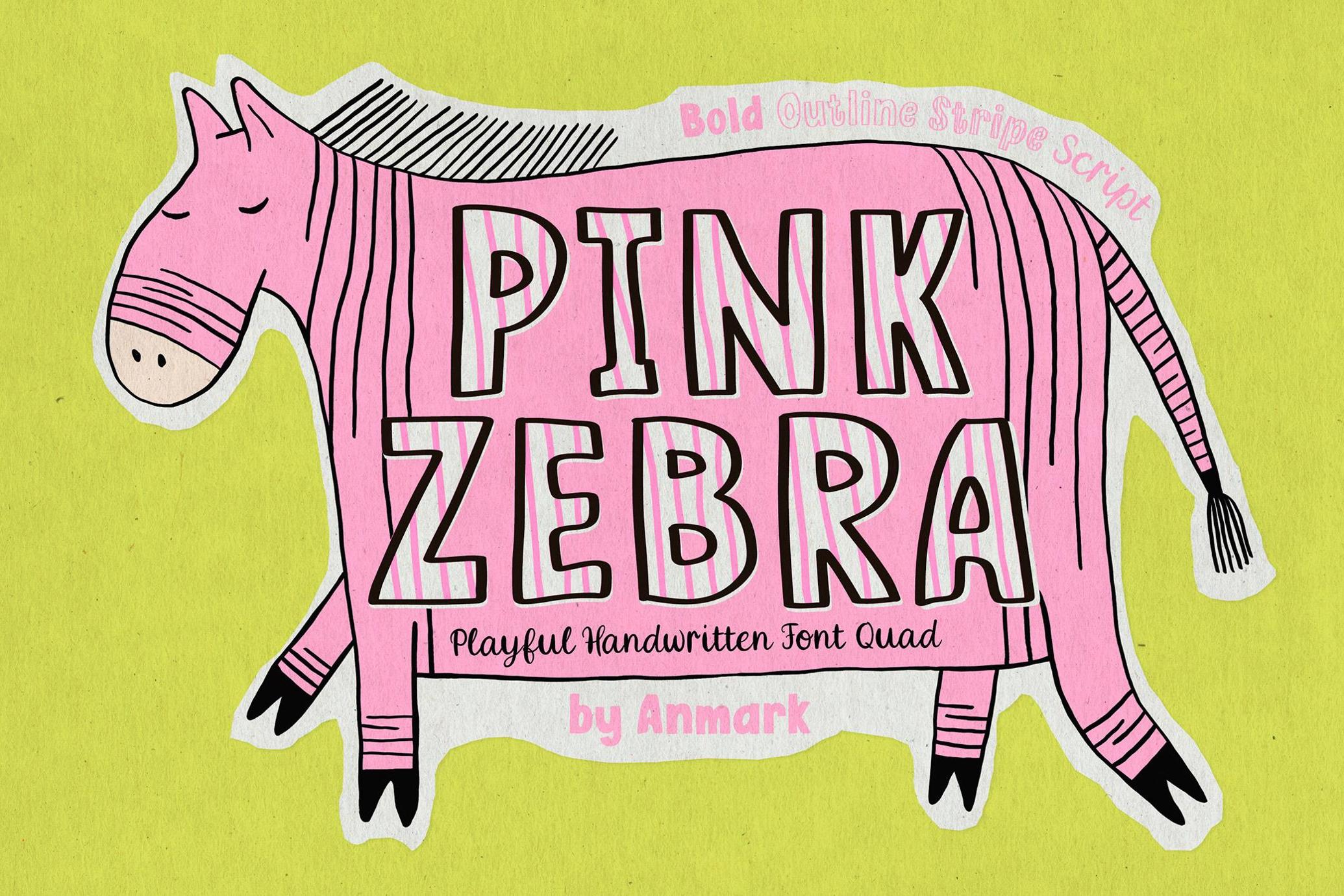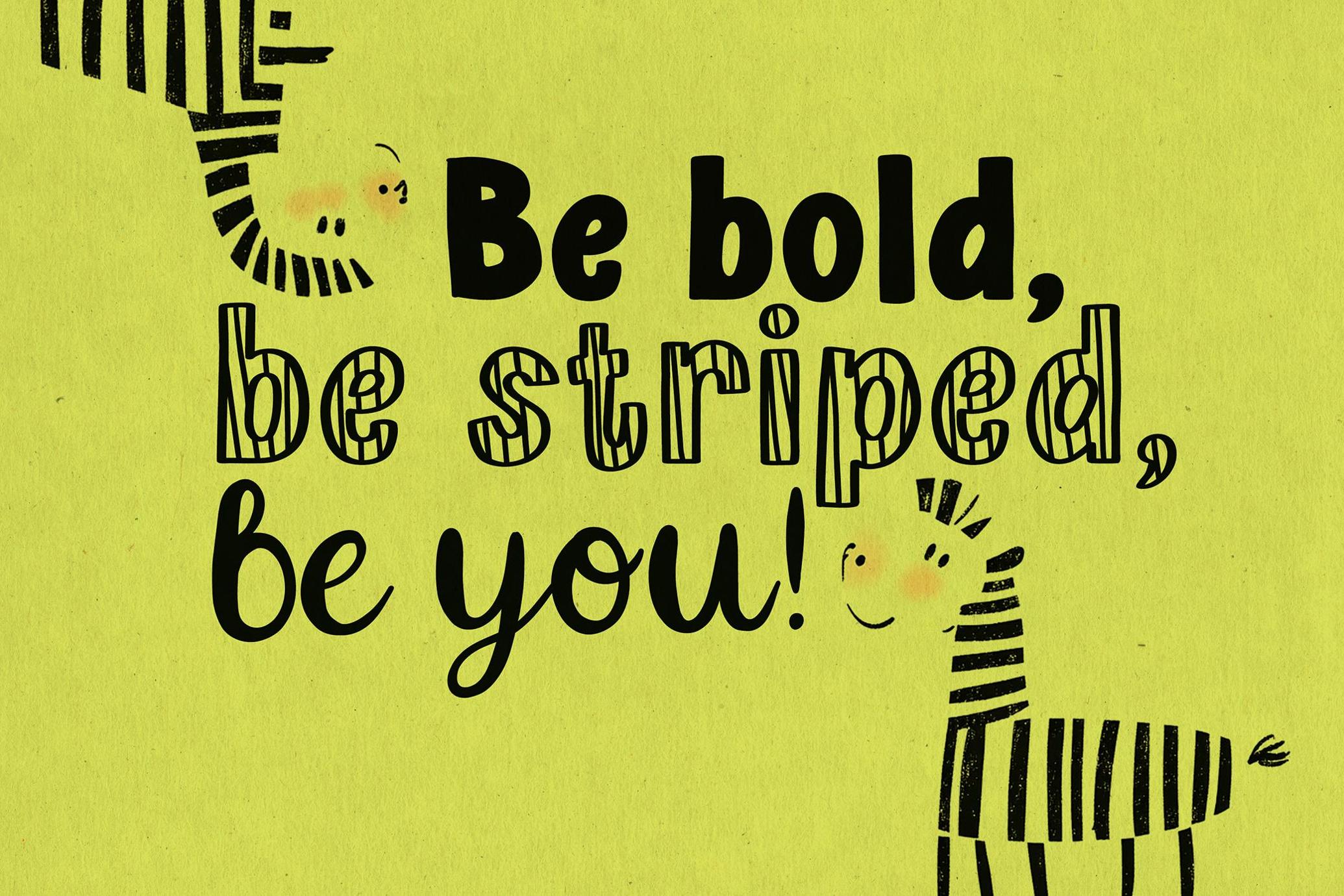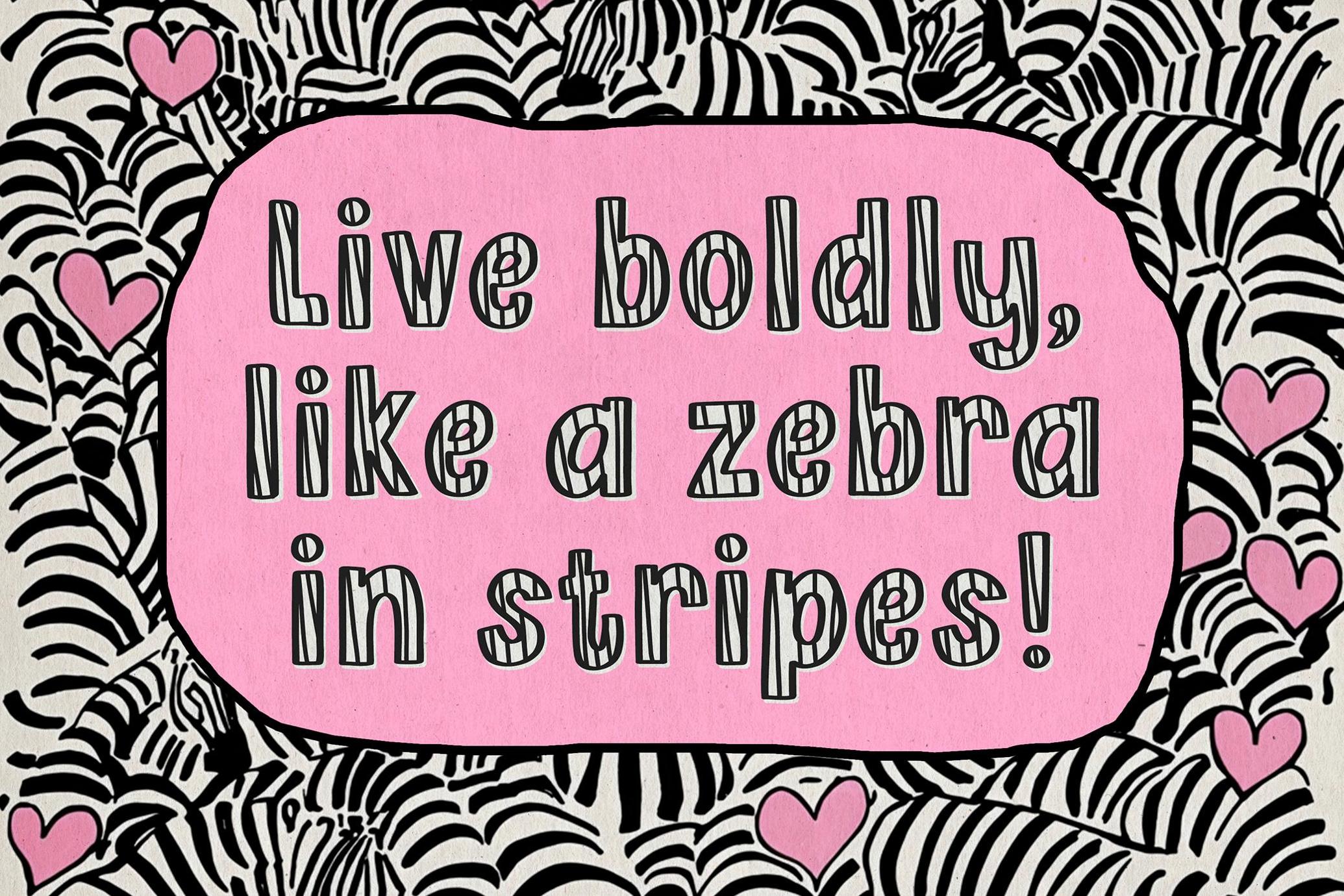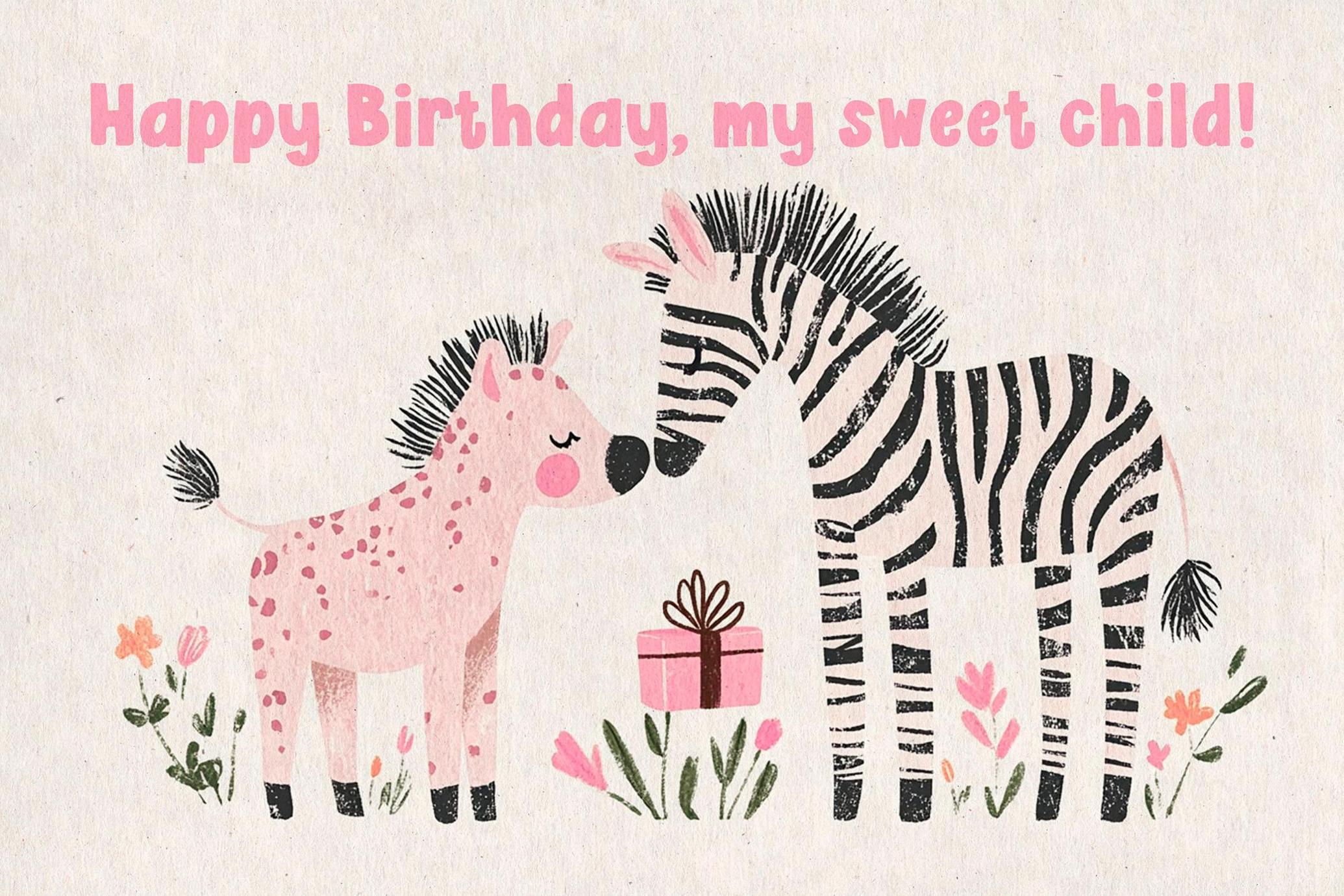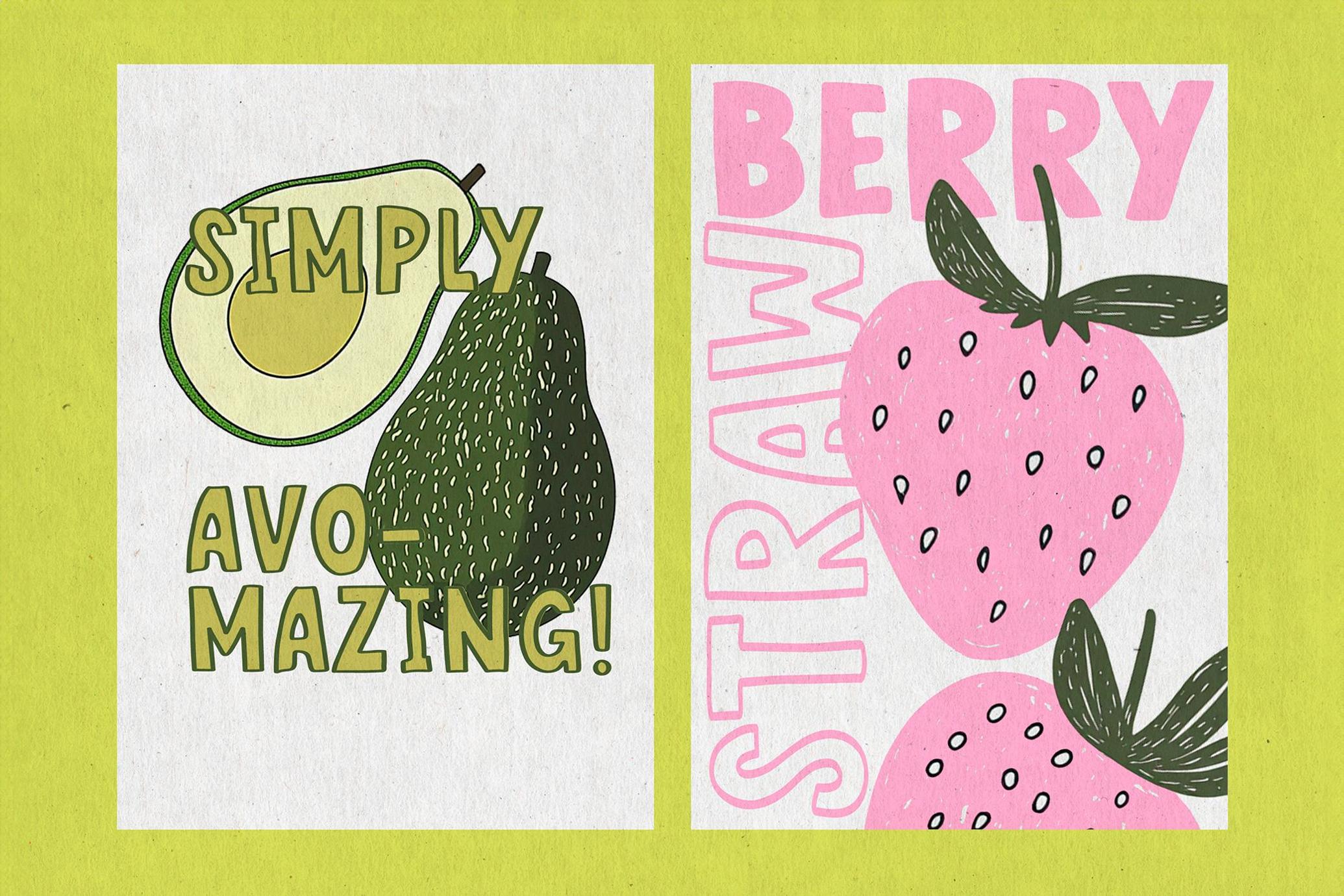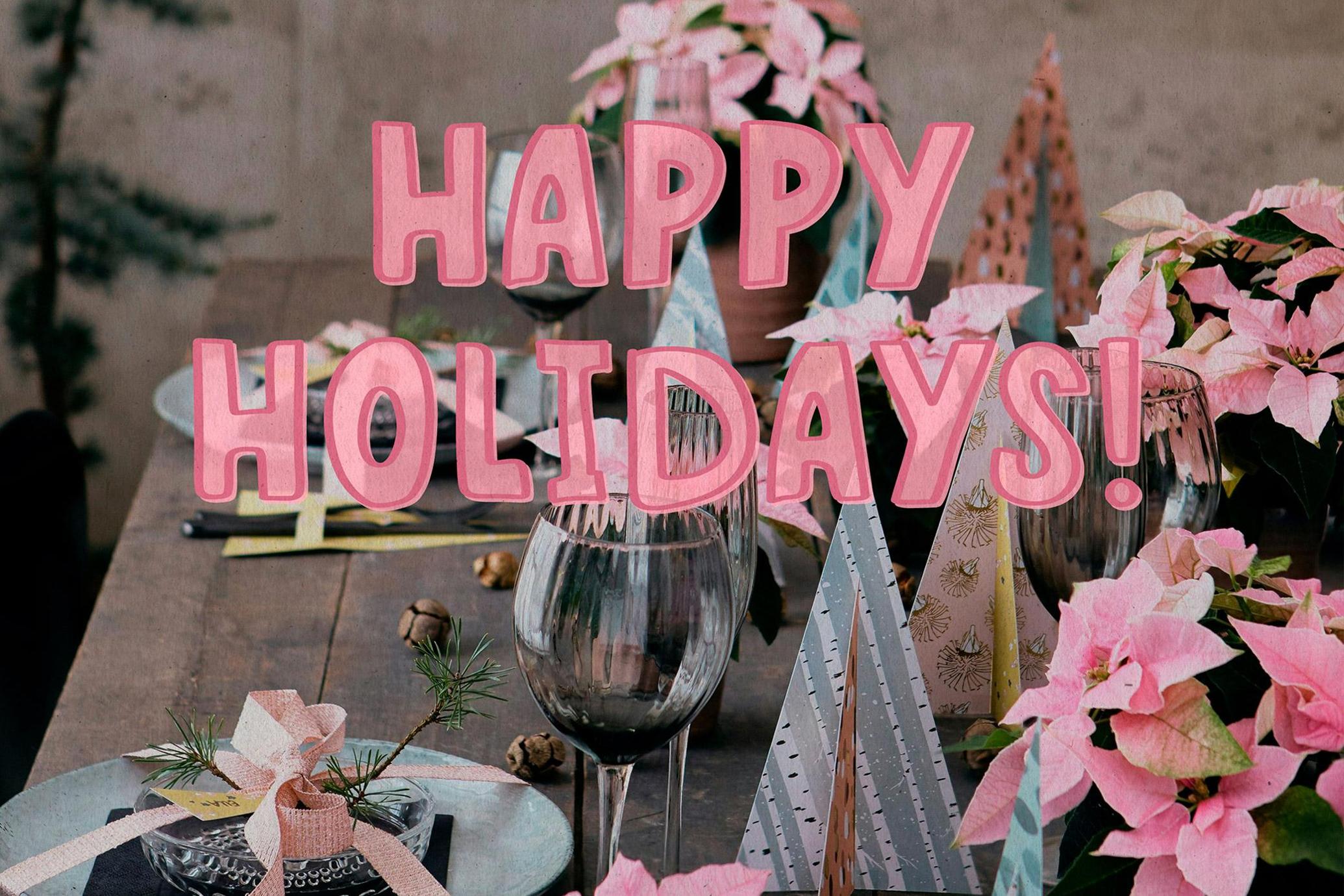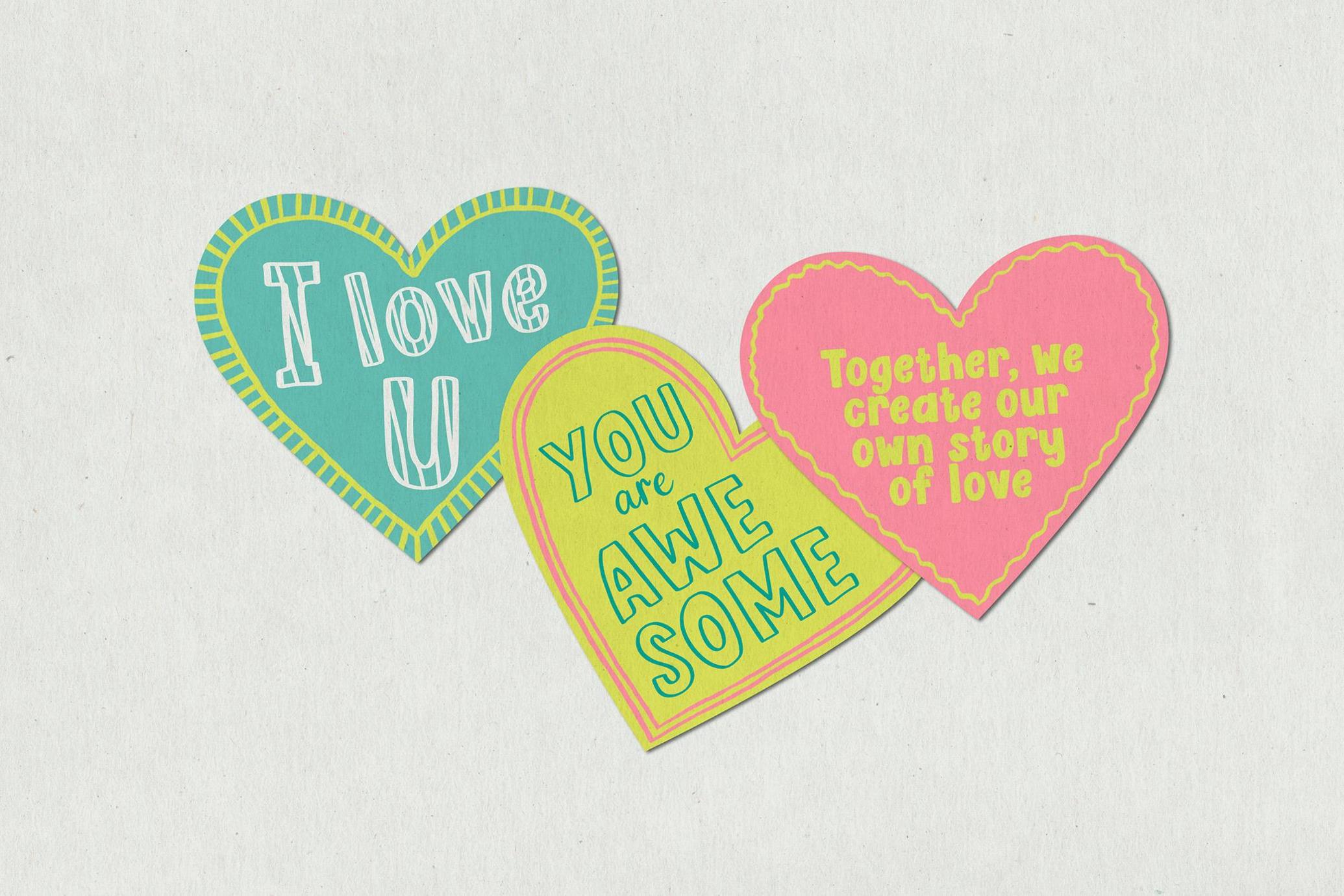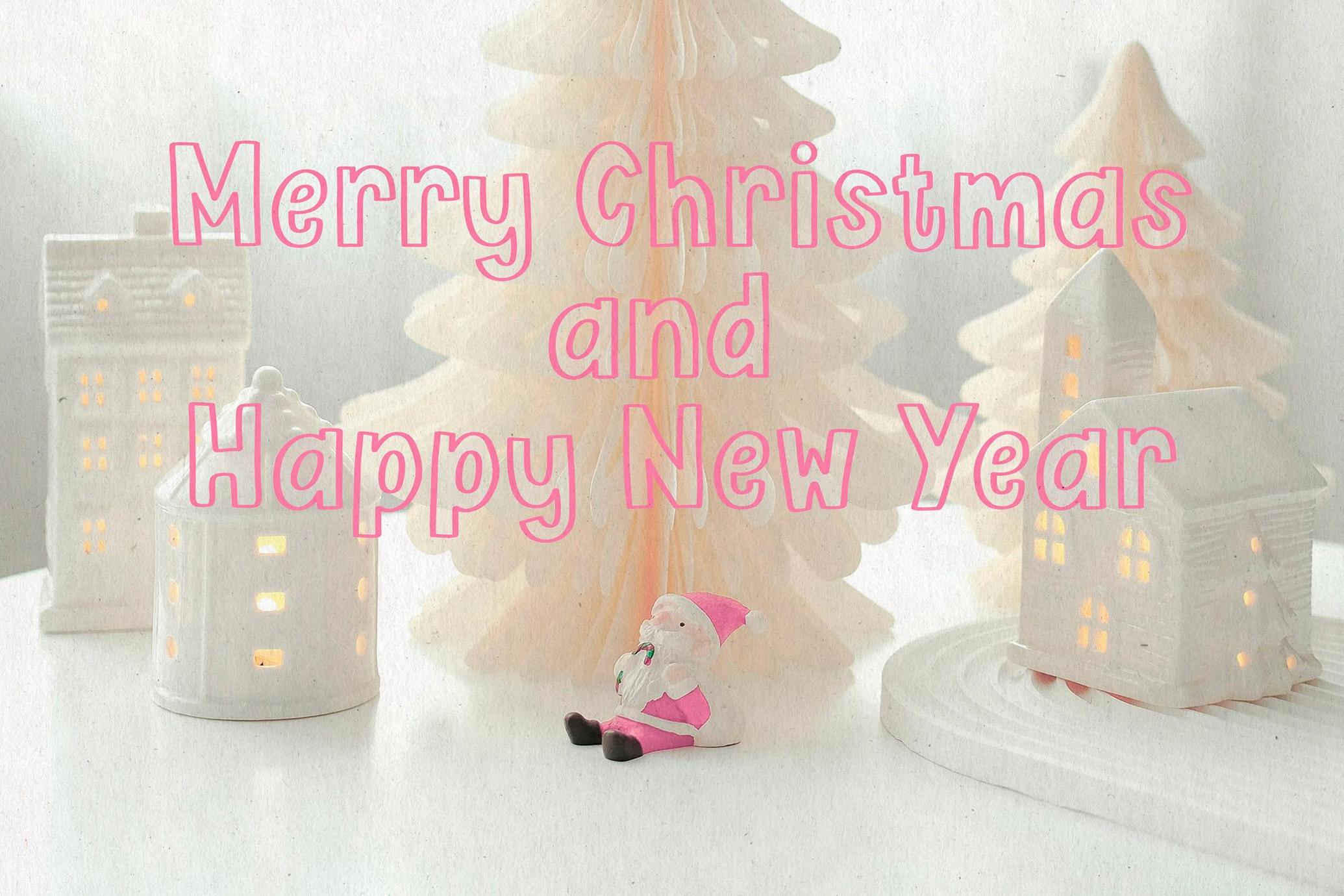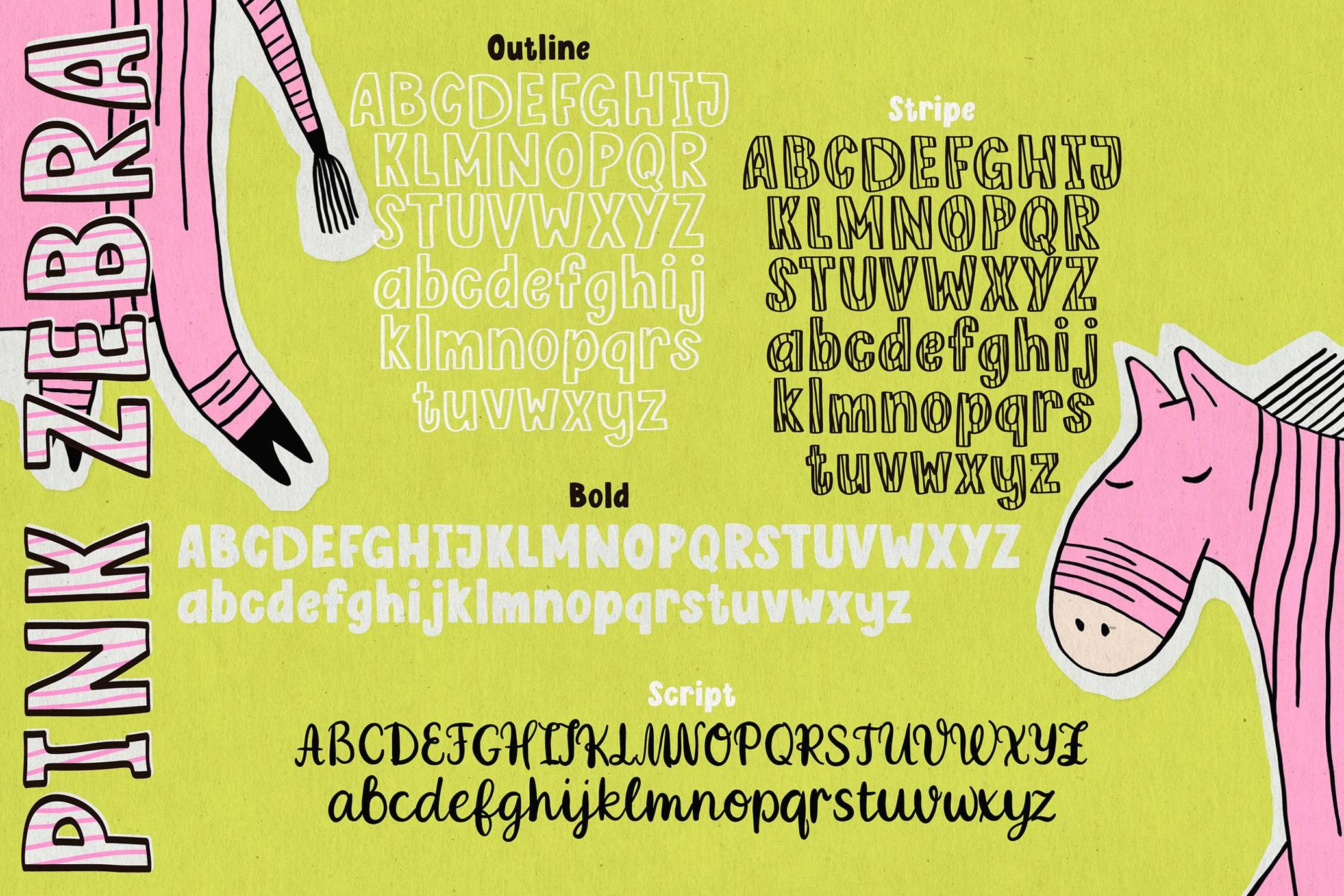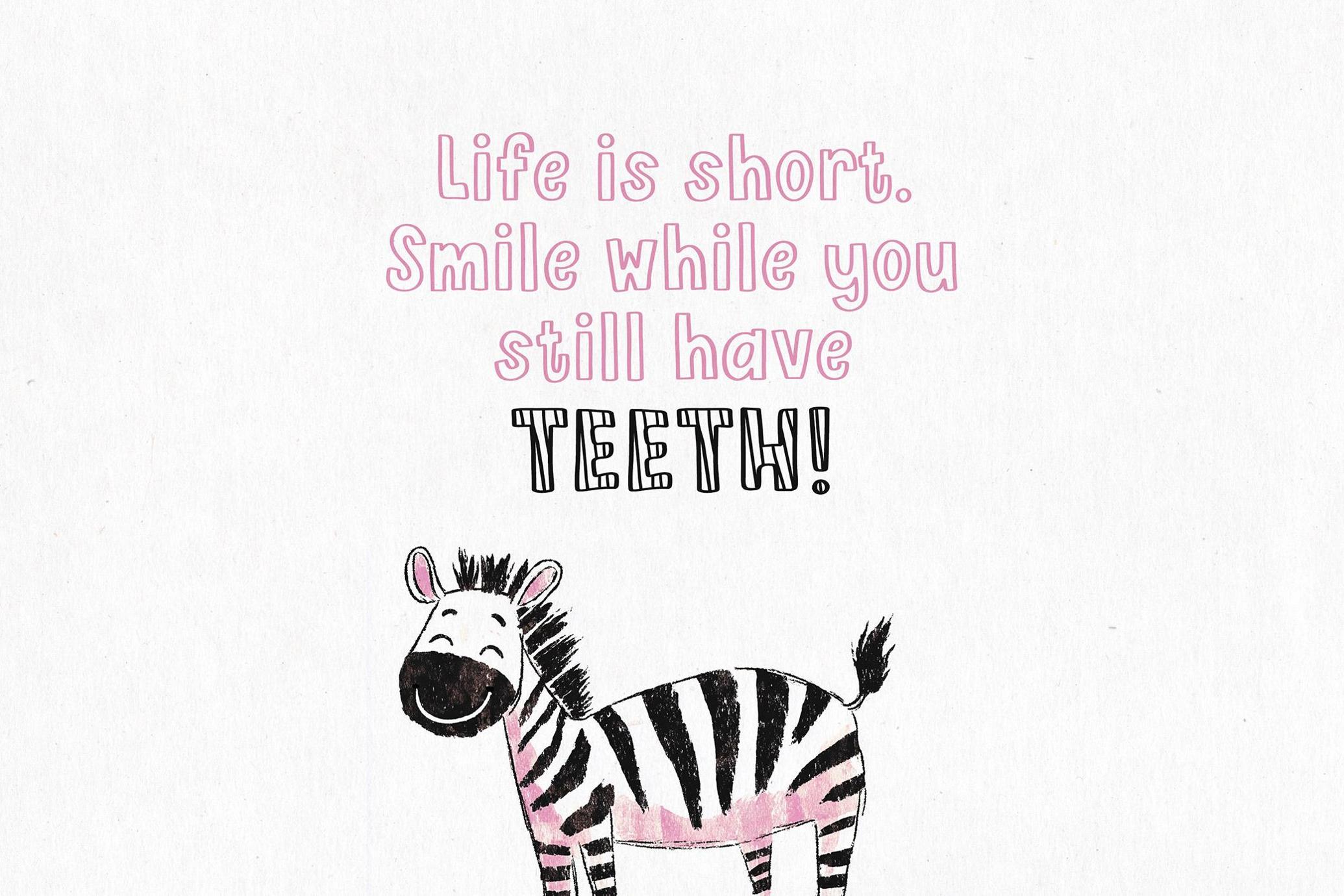
Pink Zebra Quirky Four-Font Family
Pink Zebra is a lively handwritten font family built to add energy to typography. Its organic shapes and playful strokes make it perfect for posters, packaging, invitations, menus, and children’s books.
The family includes four distinct styles — Outline, Bold, Stripe, and Script — that can be used individually or layered for custom effects. Each style offers a complete character set, plus multilingual support for a wide range of languages: English, Spanish, French, German, Portuguese, Italian, and beyond.